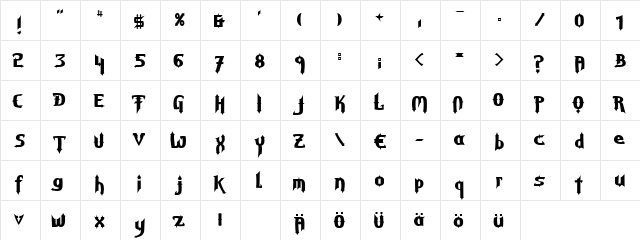
Grave Digger Regular
Design Context for Grave Digger Typeface
Grave Digger is a composed and adaptable typeface that performs quietly and consistently across a wide range of design contexts.